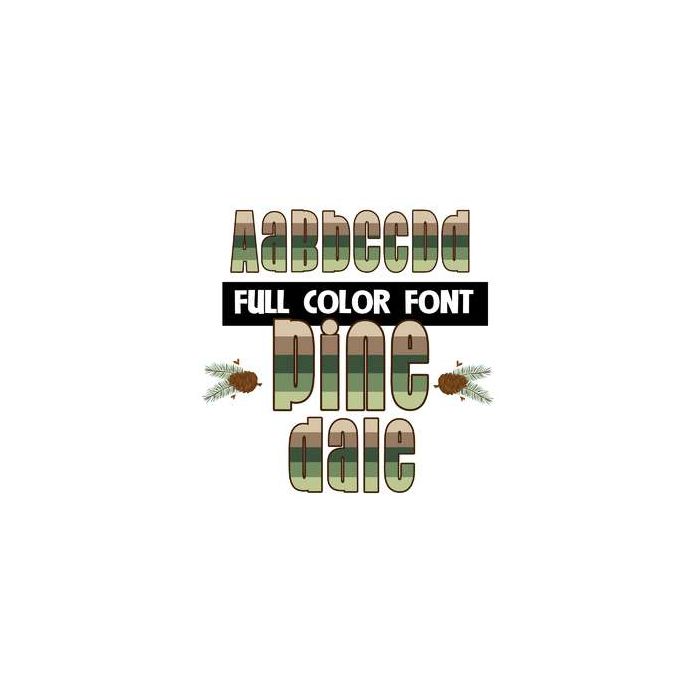
This full-color font features greens and browns and a pretty pinecone array for the brackets. This font works best for titles, displays, posters and more. Please note color fonts will show as black in non compatible programs. This font type is compatible with Silhouette Studio.